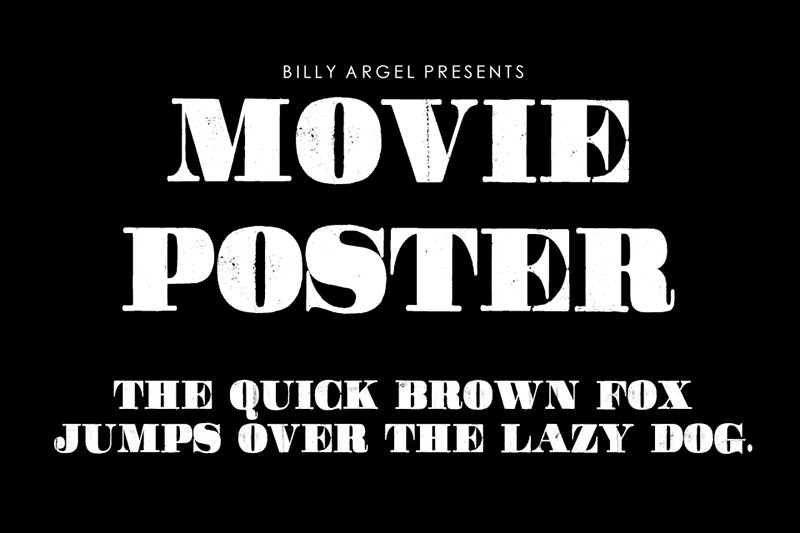
Movie Poster, designed by Billy Argel, is a captivating display font with an eroded, bold, and expanded aesthetic. Its unique, weathered appearance evokes a sense of grit and drama, making it an ideal choice for eye-catching movie posters, album covers, and editorial layouts.
The font's striking character shapes and irregular edges add depth and texture, creating a visually compelling and attention-grabbing effect. The bold, expanded letterforms exude a sense of power and prominence, making this font well-suited for headlines, titles, and other prominent design elements.
Versatile in nature, Movie Poster can lend an edgy, cinematic flair to a wide range of design projects, from vintage-inspired branding to modern, gritty editorial designs. Its dramatic, attention-grabbing personality makes it a standout choice for creating impactful and memorable visual experiences.